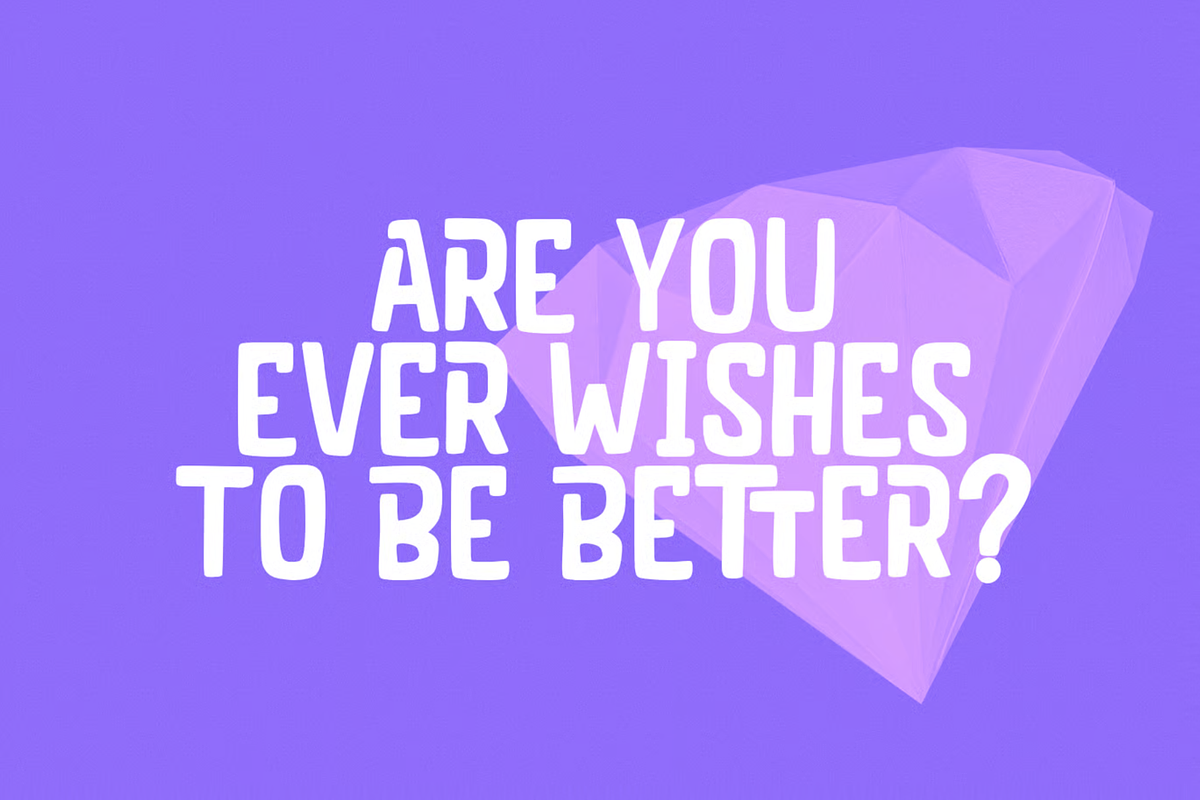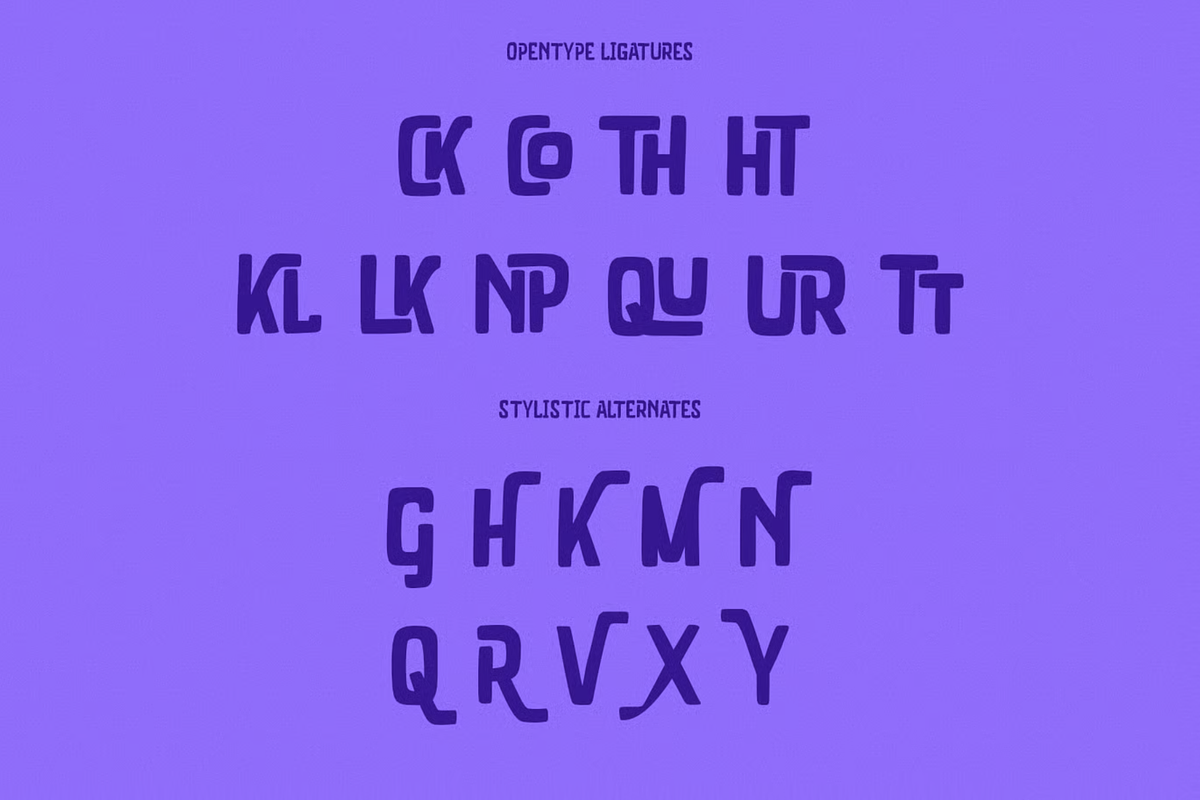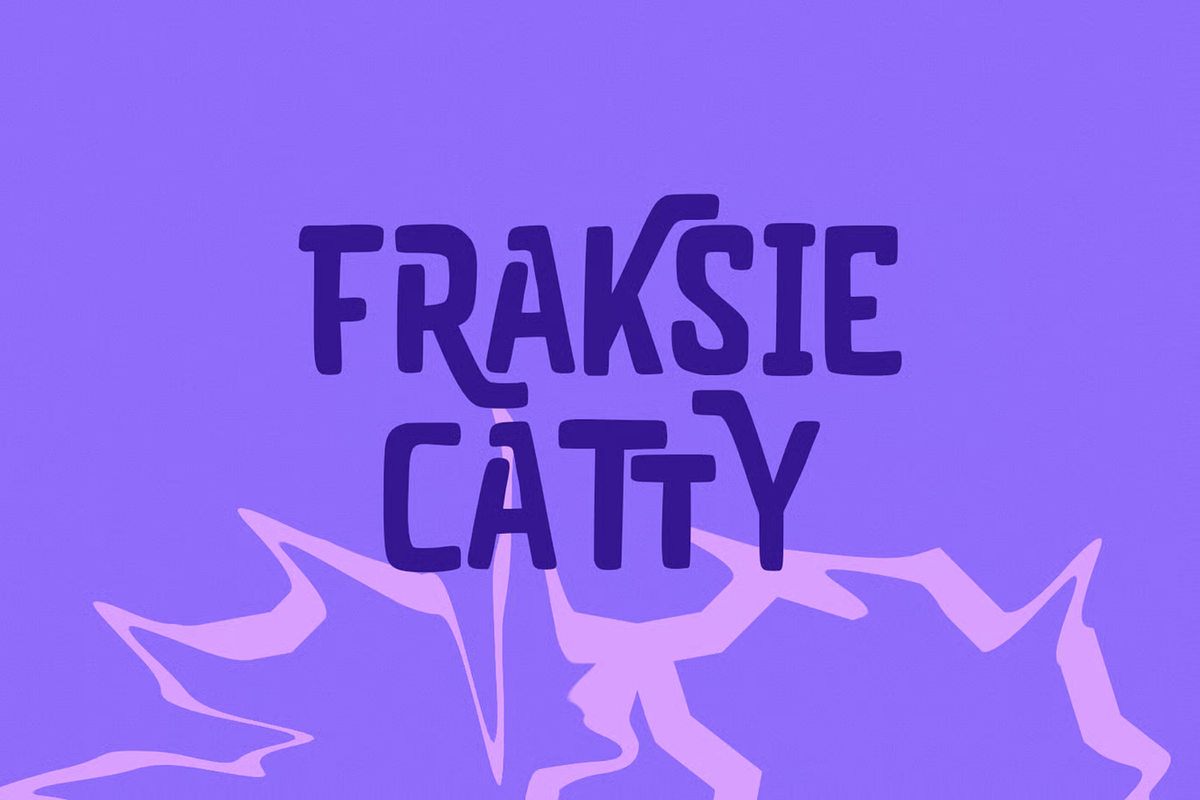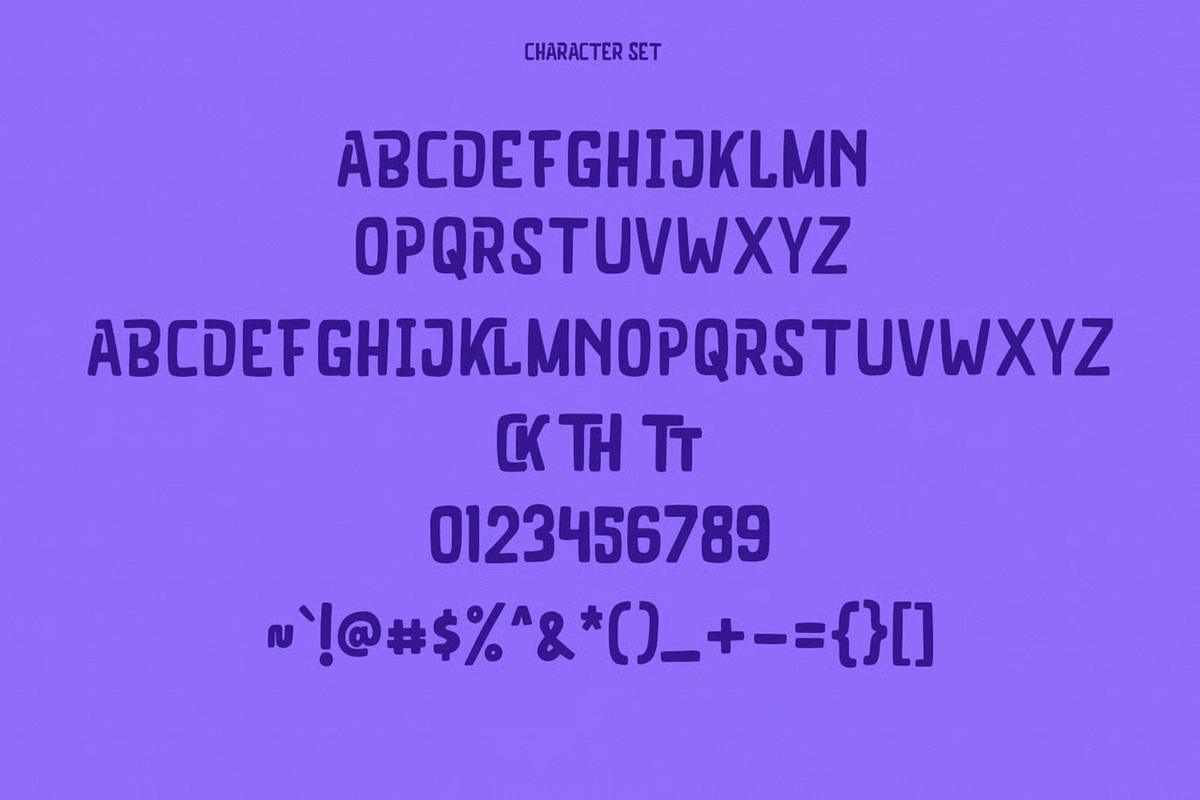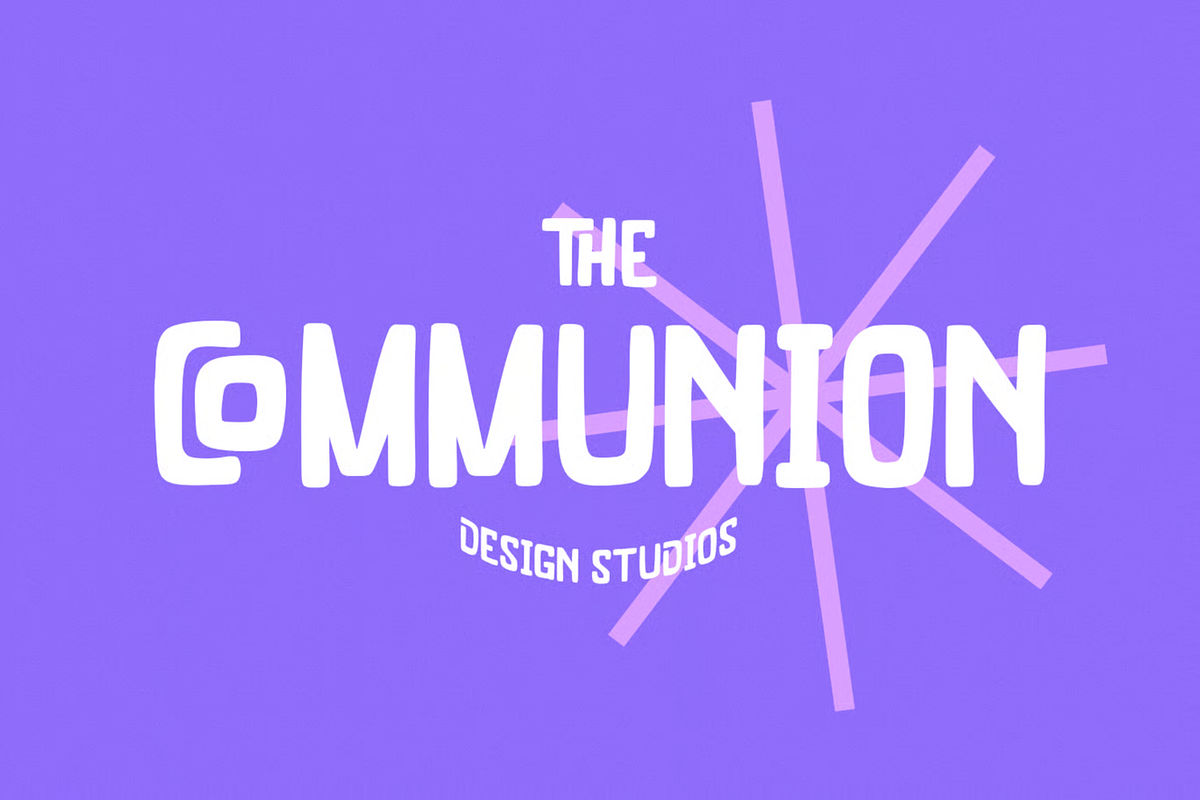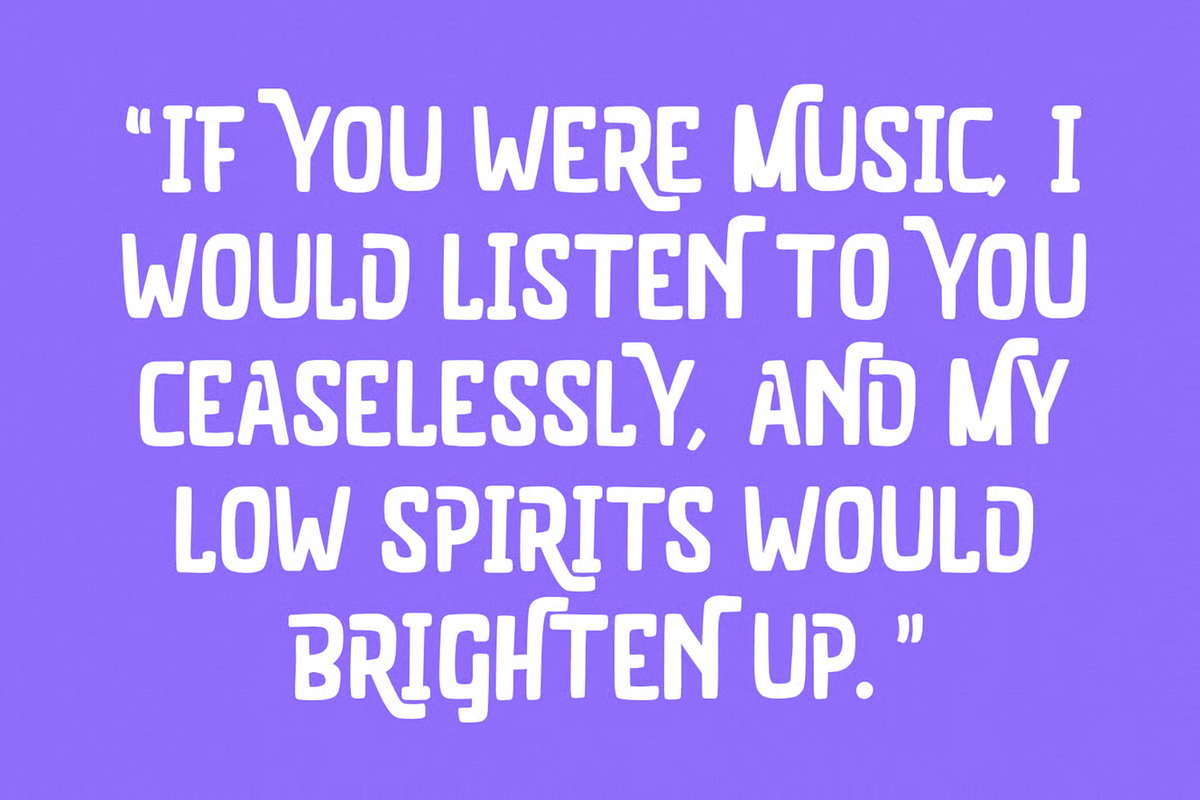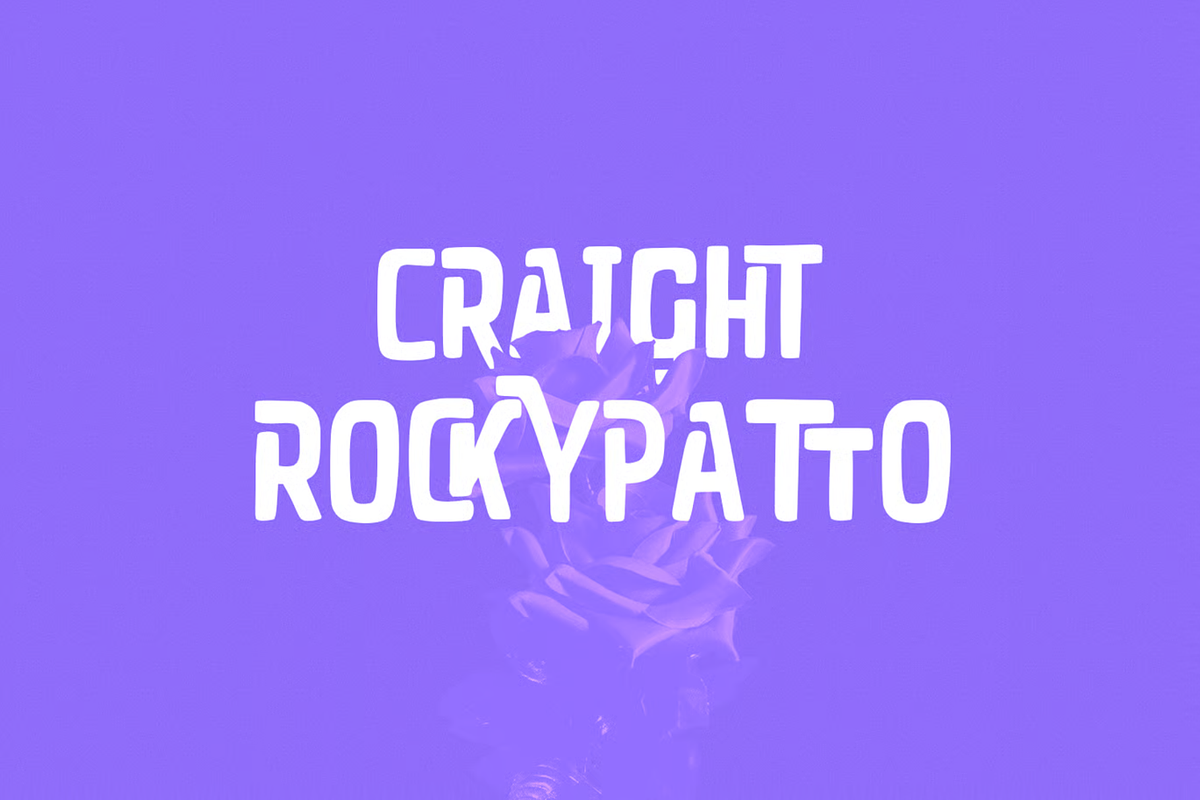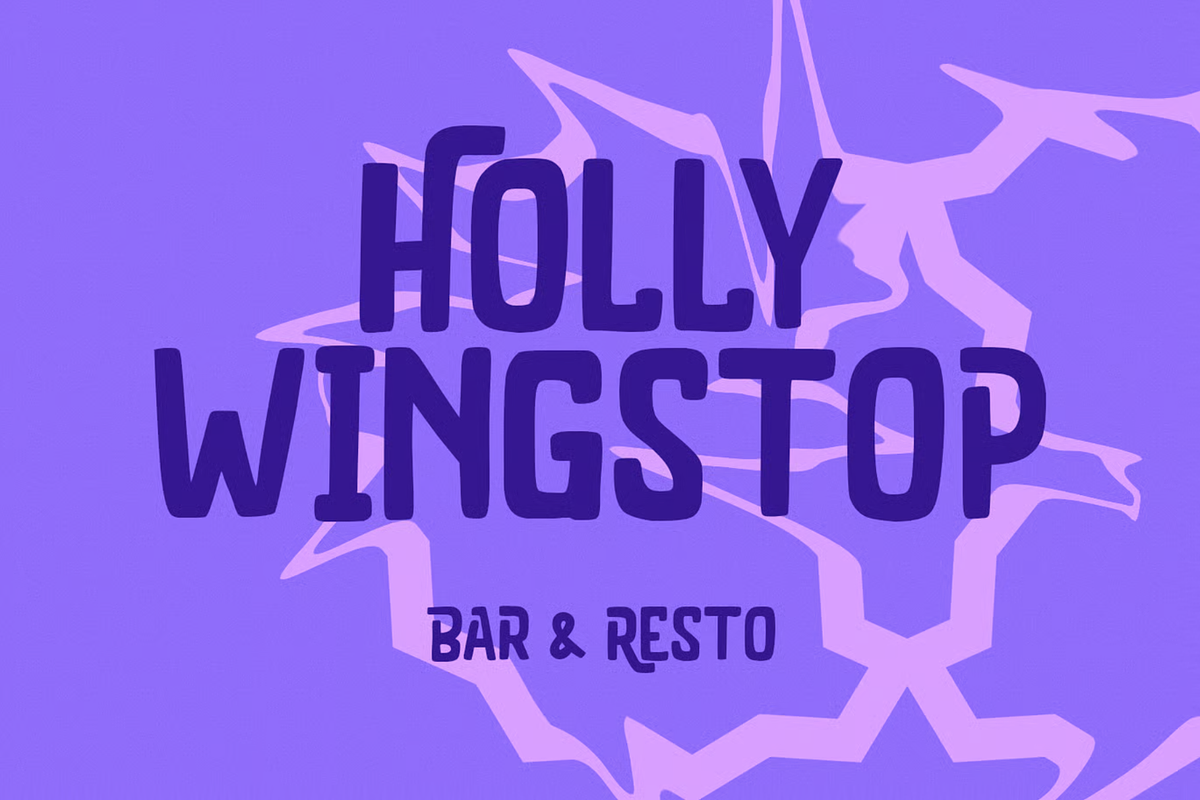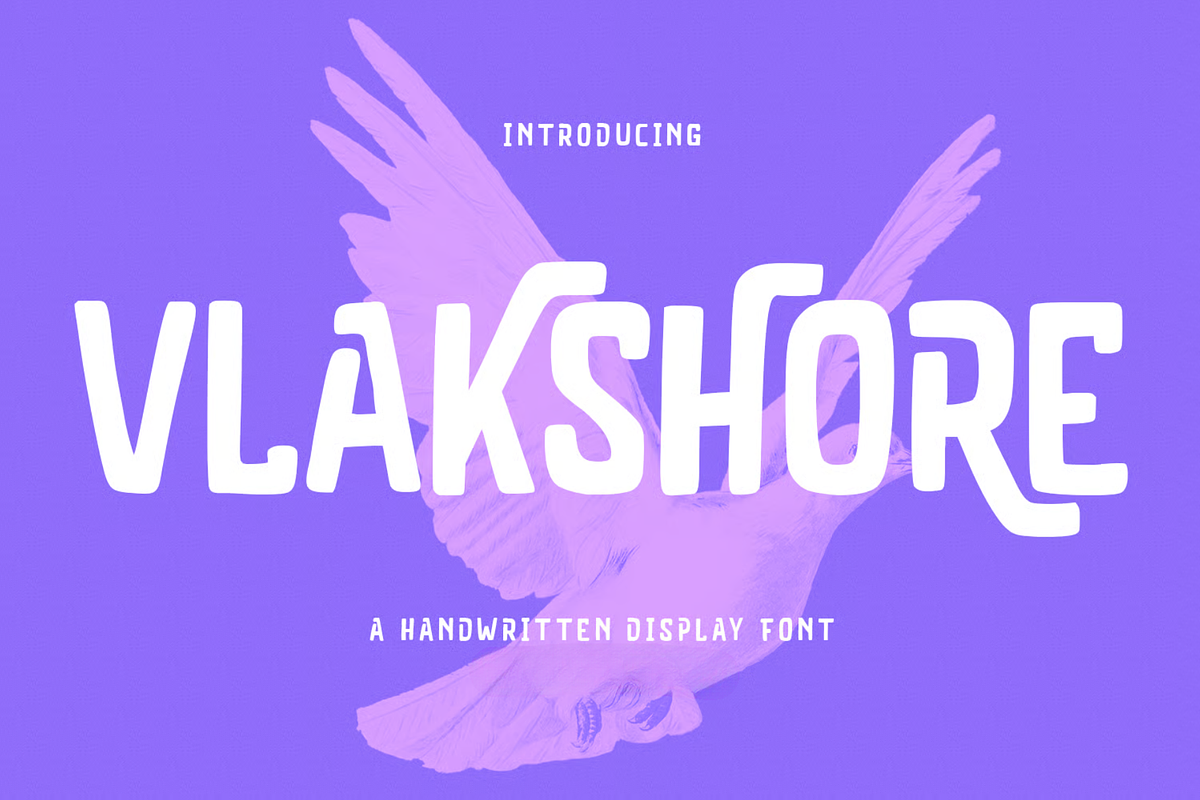
Vlakshore Decorative Display Font
Vlakshore is a decorative handwritten sans display font. With bold block stroke, fun character with a bit of ligatures and alternates. To give you an extra creative work. Vlakshore font support multilingual more than 100+ language. This font is good for logo design, Social media, Movie Titles, Books Titles, a short text even a long text letter and good for your secondary text font with sans or serif. Make a stunning work with Vlakshore font.